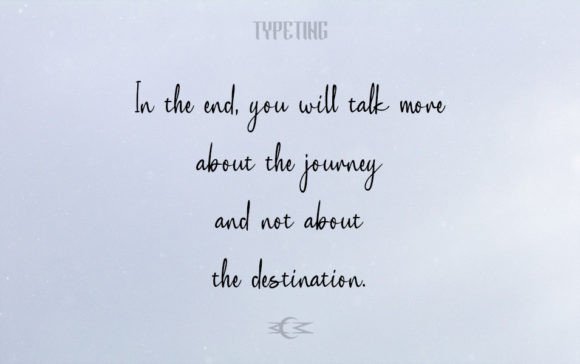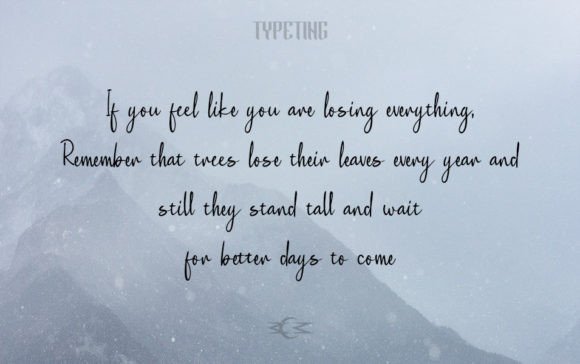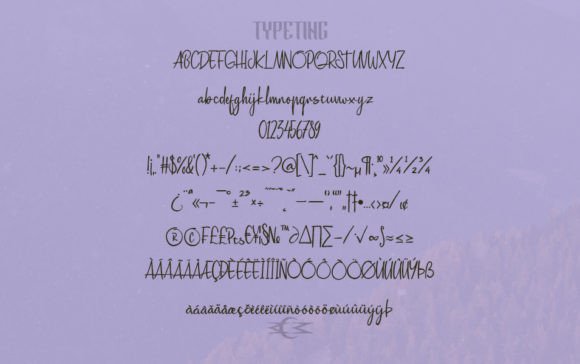
Quotes Font
Add a touch of authenticity with the Quotes font. This beautiful handwritten script enhances any design by bringing warmth and personality. Whether you’re working on logos, invitations, or branding, this font adds charm.
The Quotes font is versatile and suits many creative projects. Use it for social media graphics, greeting cards, posters, websites, and more. Its natural style creates a handcrafted and inviting look.
Each letter is crafted with smooth and flowing strokes. This careful design gives your work an elegant and polished feel. The font balances style with readability, making it ideal for headlines, quotes, and decorative text.
Despite its artistic flair, the Quotes font remains readable at all sizes. Whether used for bold titles or subtle accents, it adapts perfectly to your design needs. Its versatility makes it a great choice for many applications.
Using this font will help your projects stand out. It adds a genuine and stylish vibe. If you want your designs to look warm and professional, the Quotesfont is an excellent choice.
In summary, the Quotesfont fits many design needs. From logos to invitations and branding, it brings beauty and authenticity. Download it today and create memorable, elegant designs with a handwritten script.